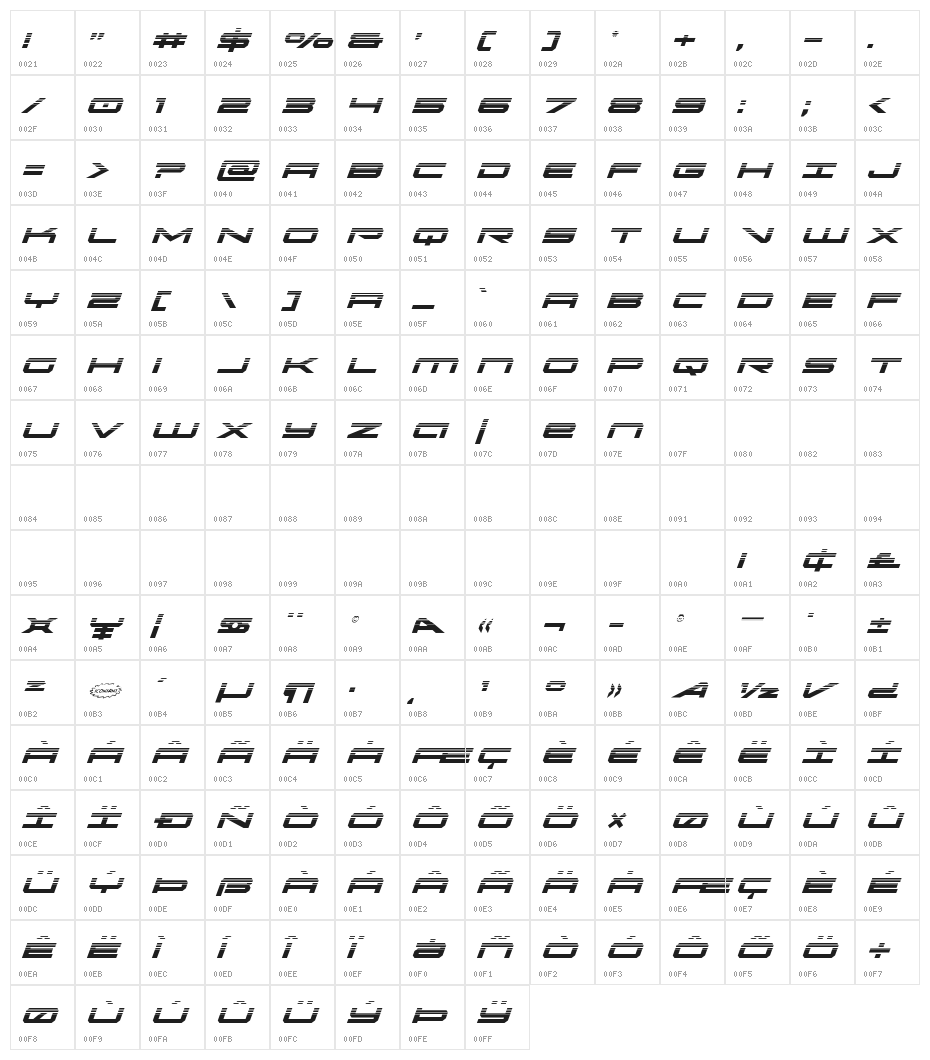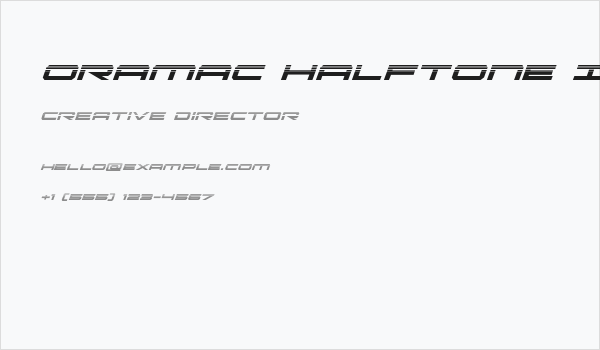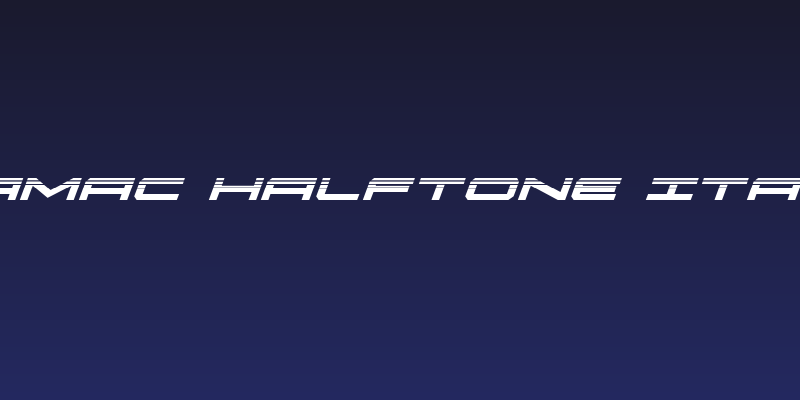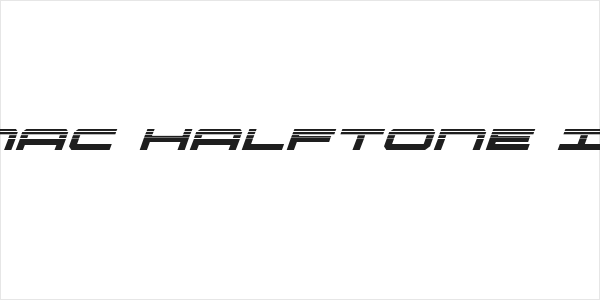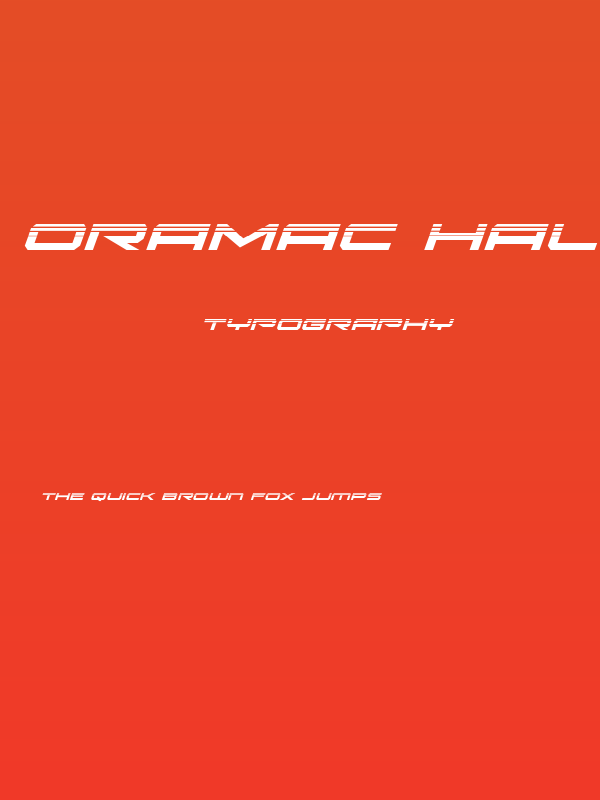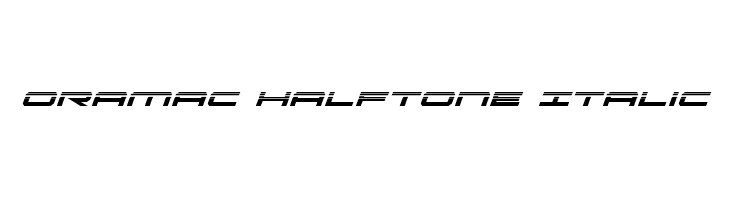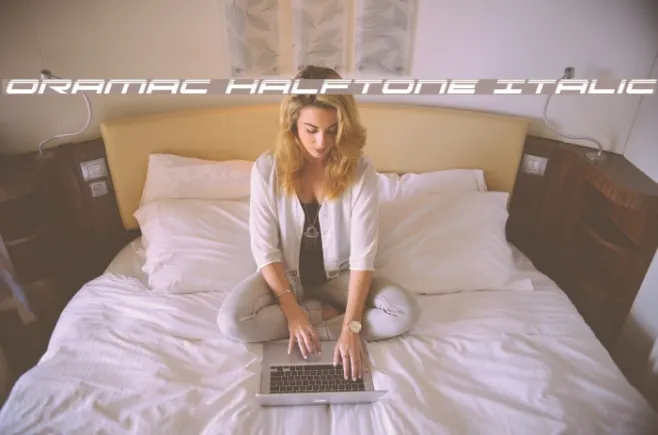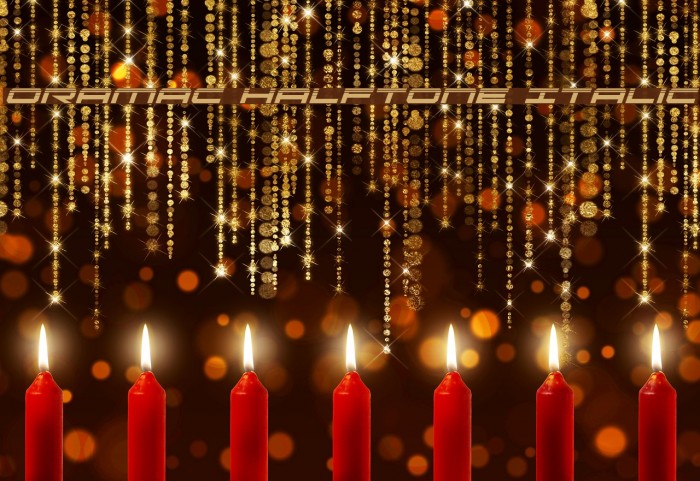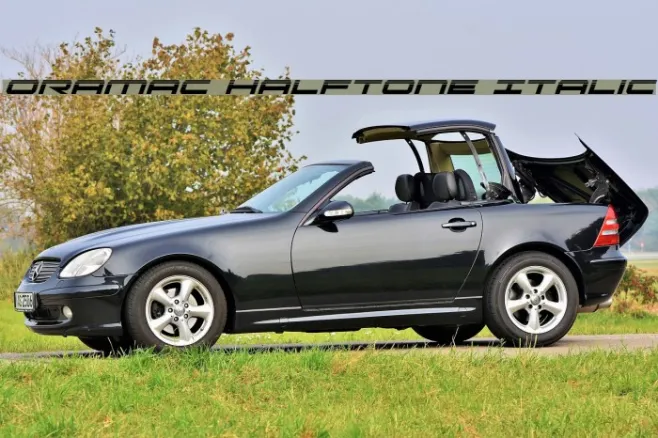
Oramac Halftone Italic Font
Oramac Halftone Italic Description
This font features a dynamic and futuristic design with a halftone effect that gives it a unique, textured appearance. The characters are italicized, adding a sense of motion and speed. The angular and geometric shapes of the letters create a modern and edgy look, ideal for projects that require a bold statement. The font includes uppercase and lowercase letters, numbers, and a variety of special characters, all maintaining the consistent halftone style. The spacing between characters is tight, enhancing the compact and cohesive feel of the text.
| Proposed Projects | Ideal for sci-fi themed designs, video game graphics, tech branding, and modern posters. |